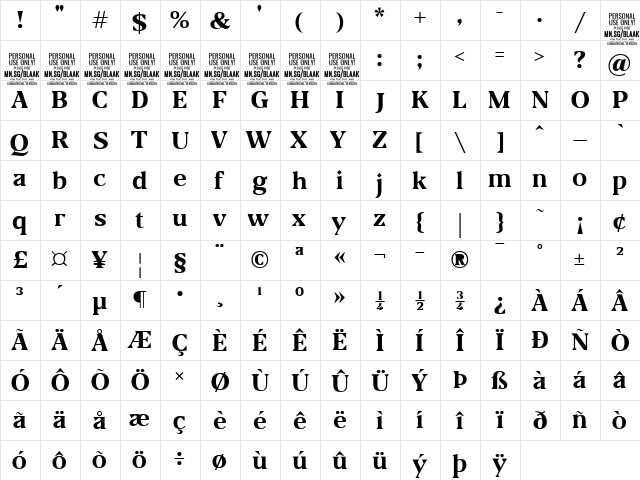
Blaak Bold PERSONAL USE Regular
| Foundry | Mans Greback |
| Designer | Unidaas & Mans Greback |
Design Context for Blaak Bold PERSONAL USE Typeface
Blaak Bold PERSONAL USE offers clean, dependable letterforms without strong stylistic allegiance, making it a practical choice for designers who need flexibility. The heavy weight commands attention and anchors typographic hierarchies.